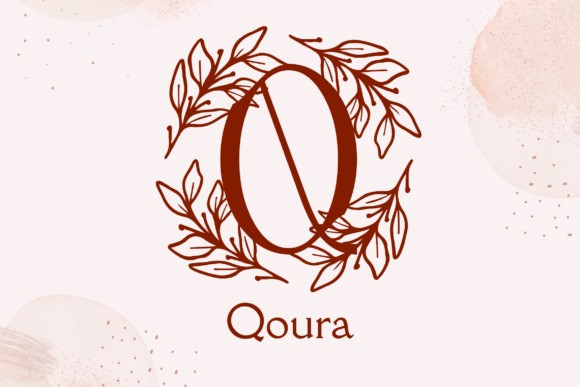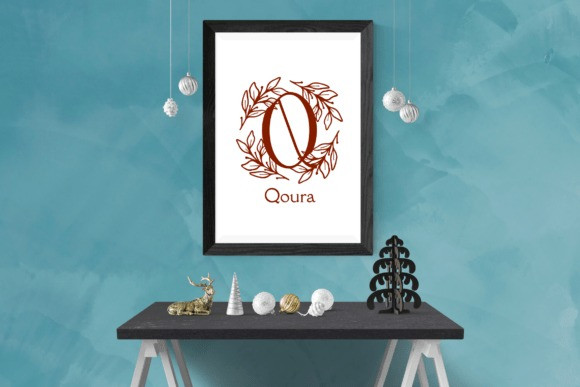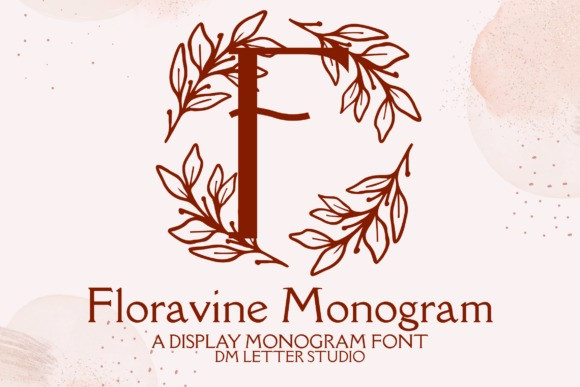
Floravine Monogram Font
Floravine Monogram Font turns simple initials into graceful floral-vine emblems that feel romantic, airy, and handcrafted. The strokes are smooth and balanced, so letters stay clear at any size. Because counters remain open, tiny tags print crisp while large signage looks elegant and premium. Use it for wedding suites, boutique logos, keepsake gifts, wax seals, stationery, and luxury packaging. As a result, your designs gain a soft botanical charm that looks gift-ready right away.